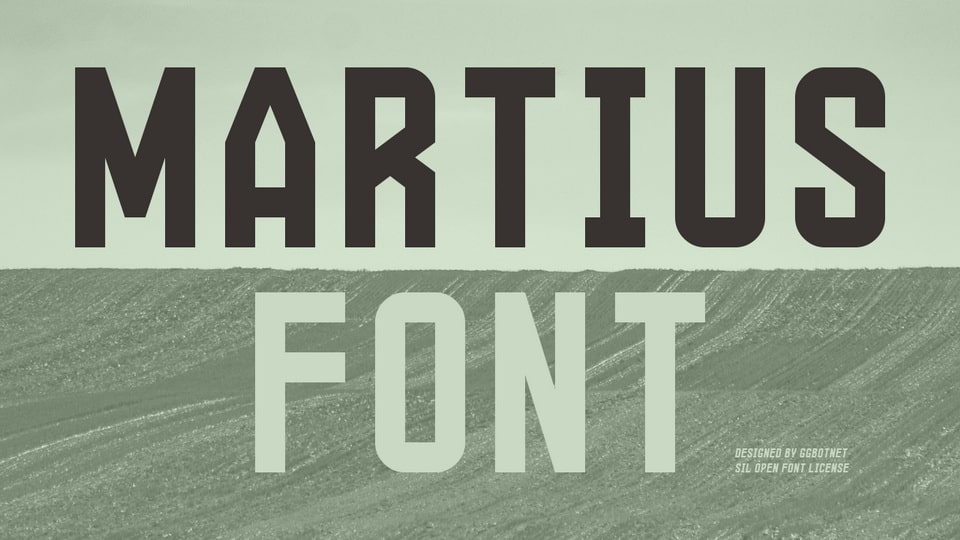
Download Martius font, a condensed geometric display typeface designed with a strong industrial aesthetic with its sharp angles, clean lines, and compact letterforms.